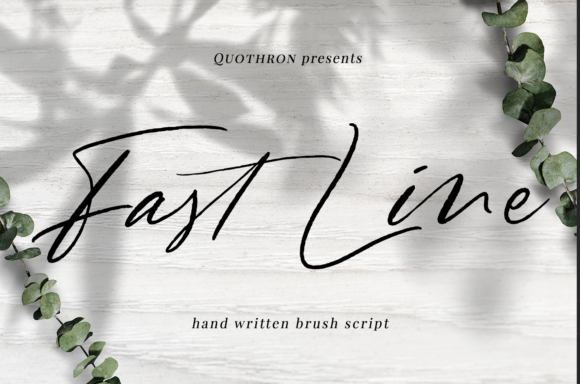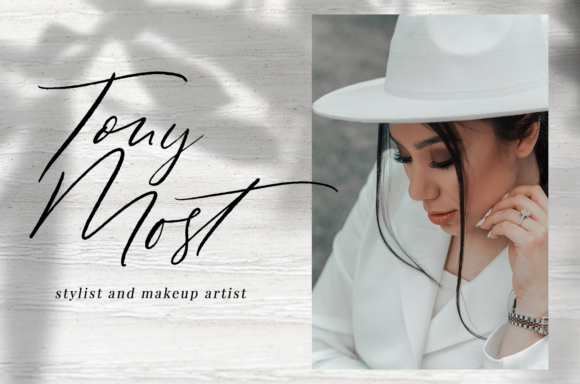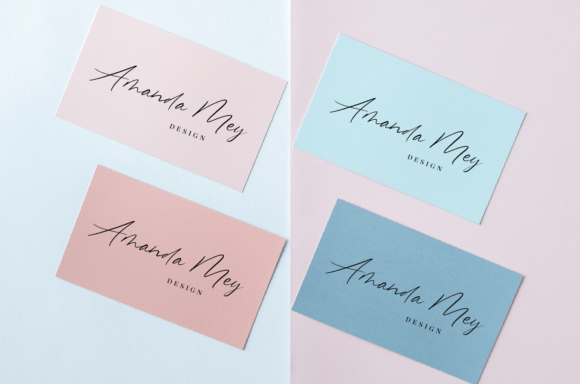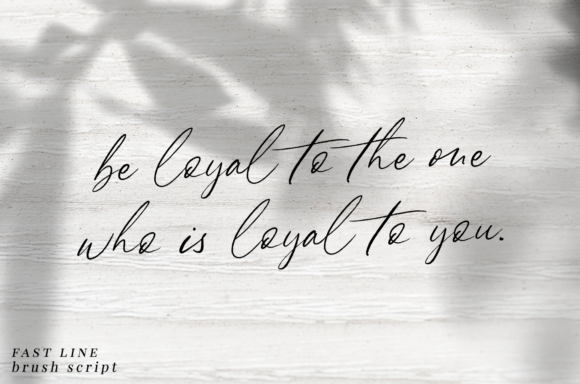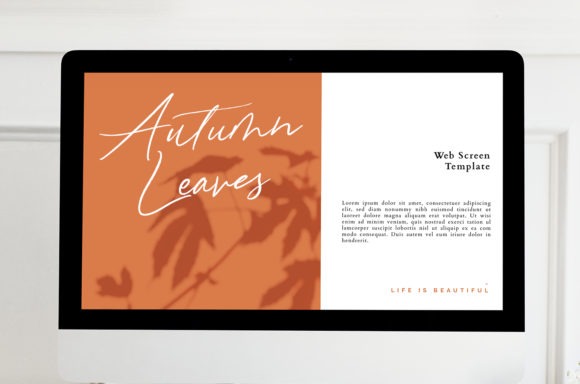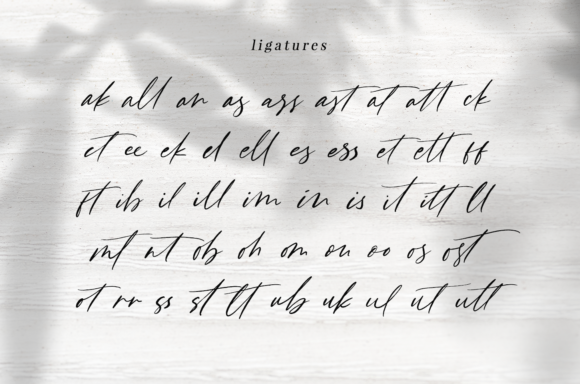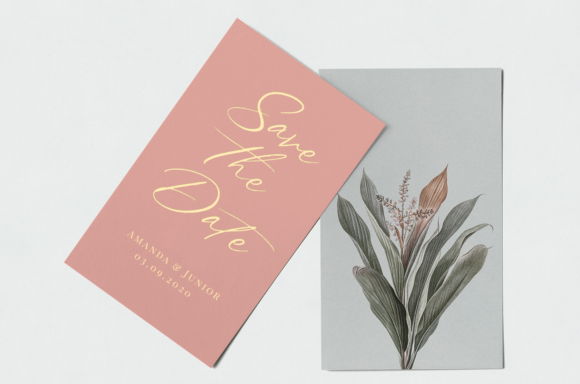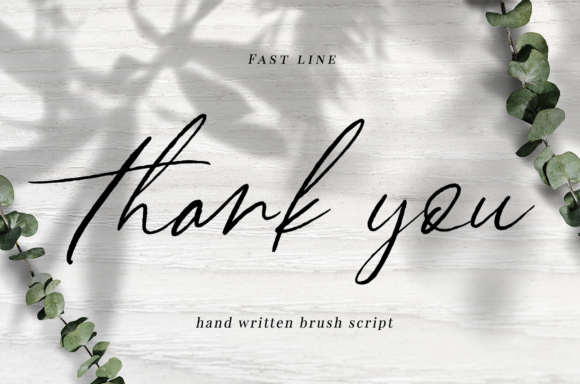
Fast Line Font
About Fast Line Font
Fast Line is a flowing handwritten font, described by an elegant touch, perfect for your favorite projects. Fall in love with its incredibly distinct and timeless style and use it to create spectacular designs!